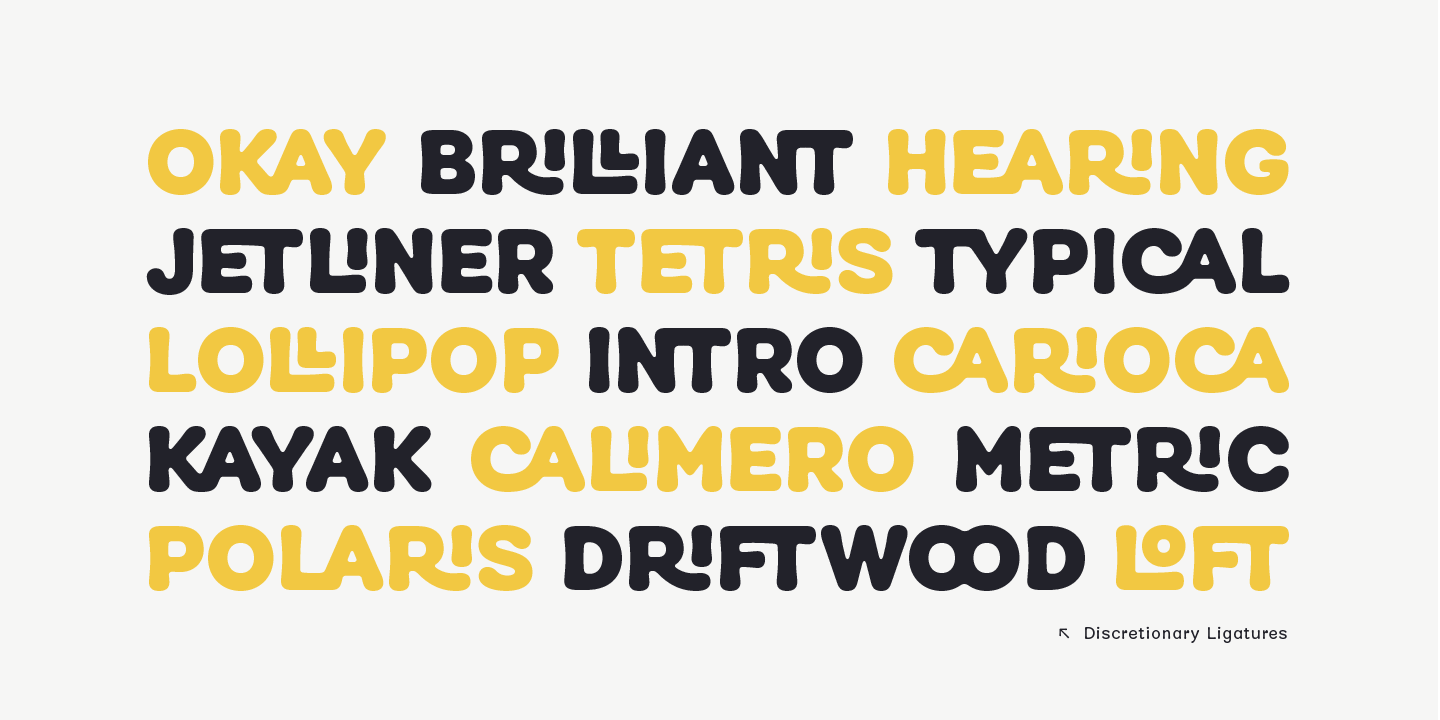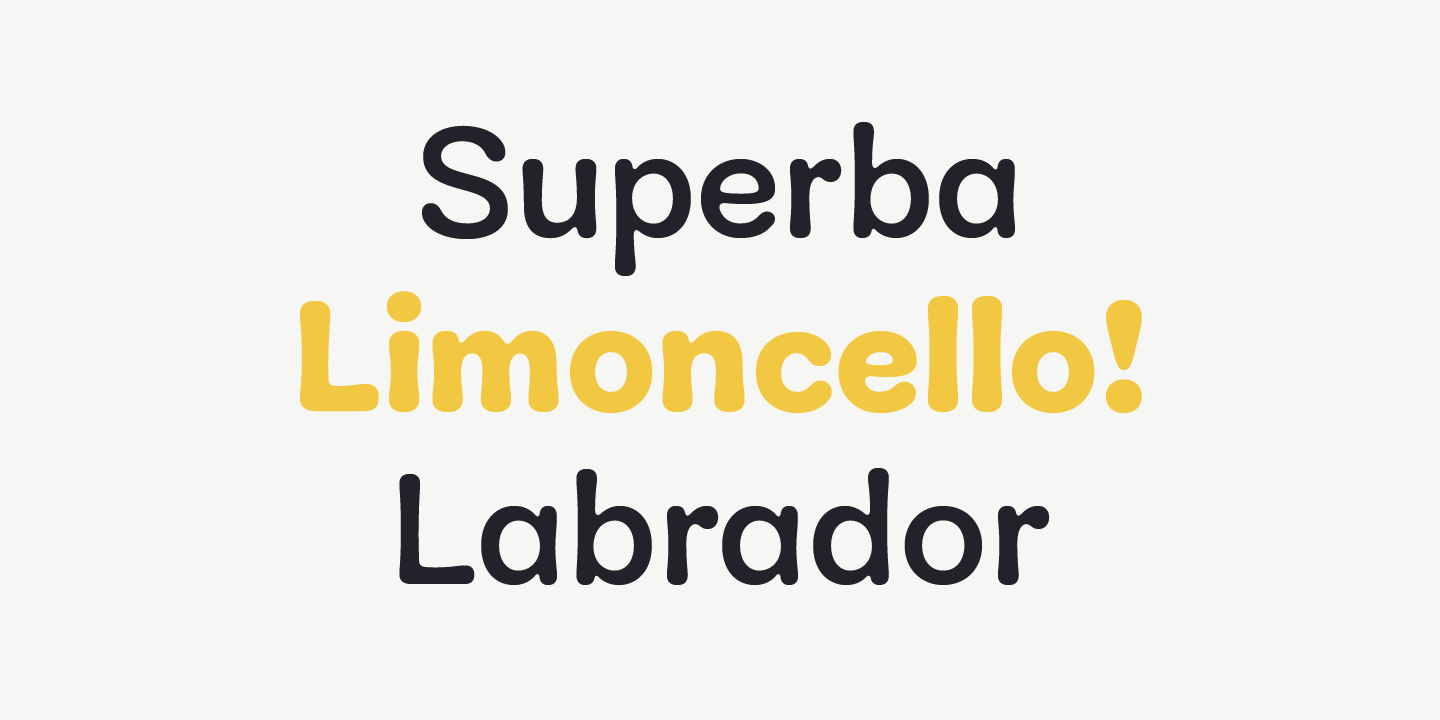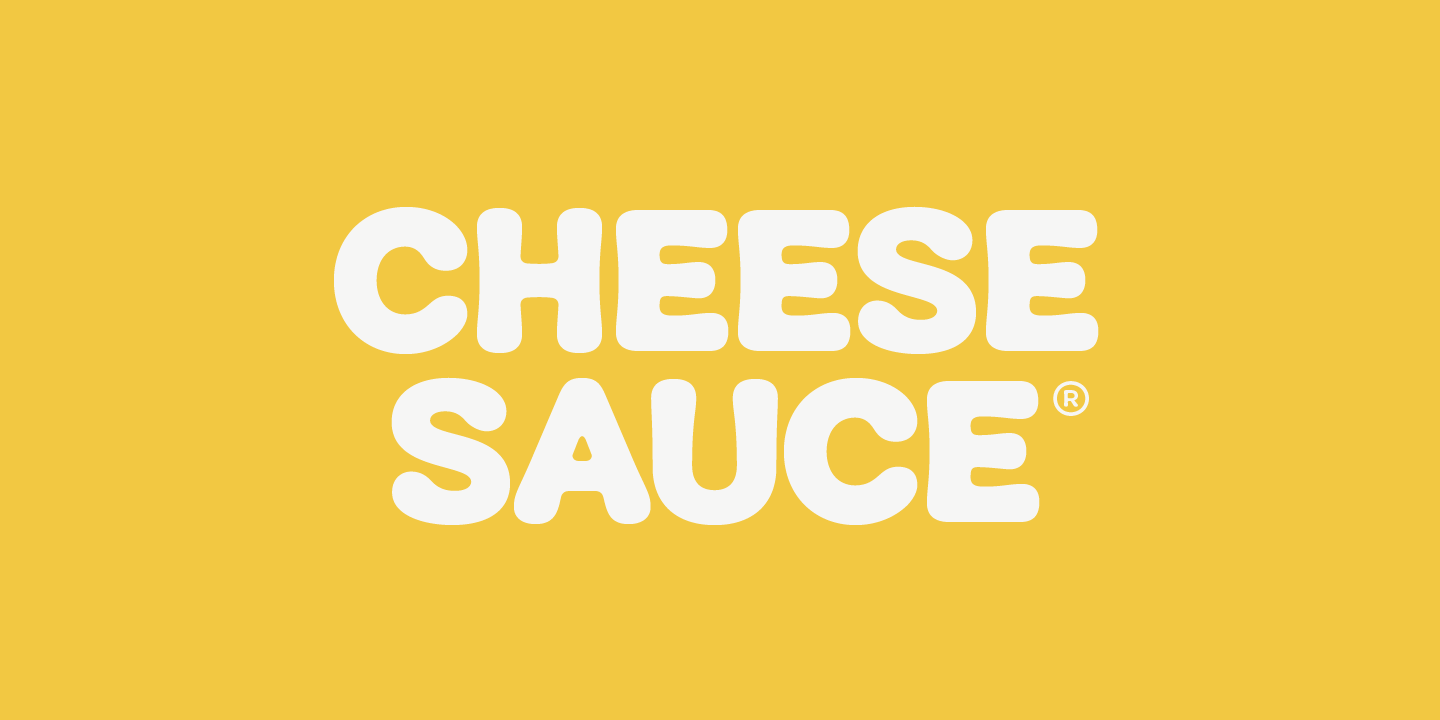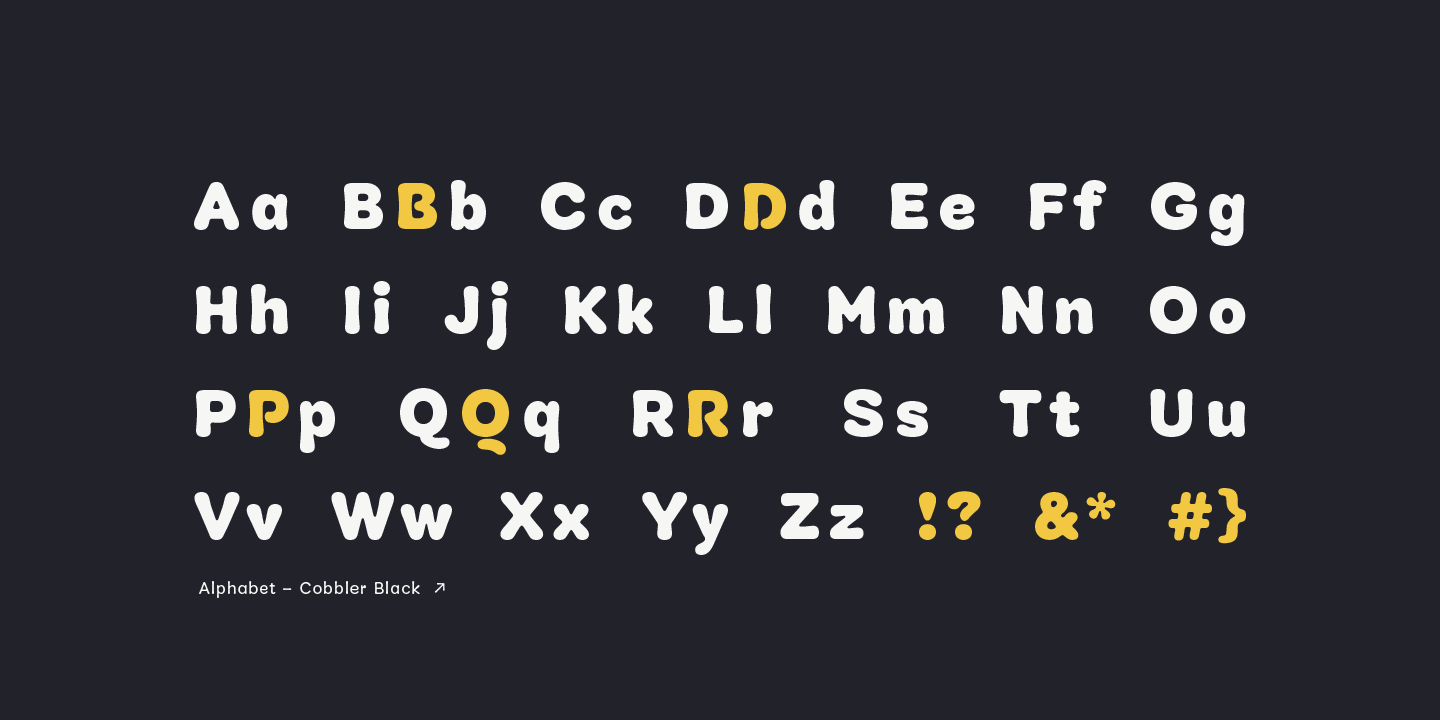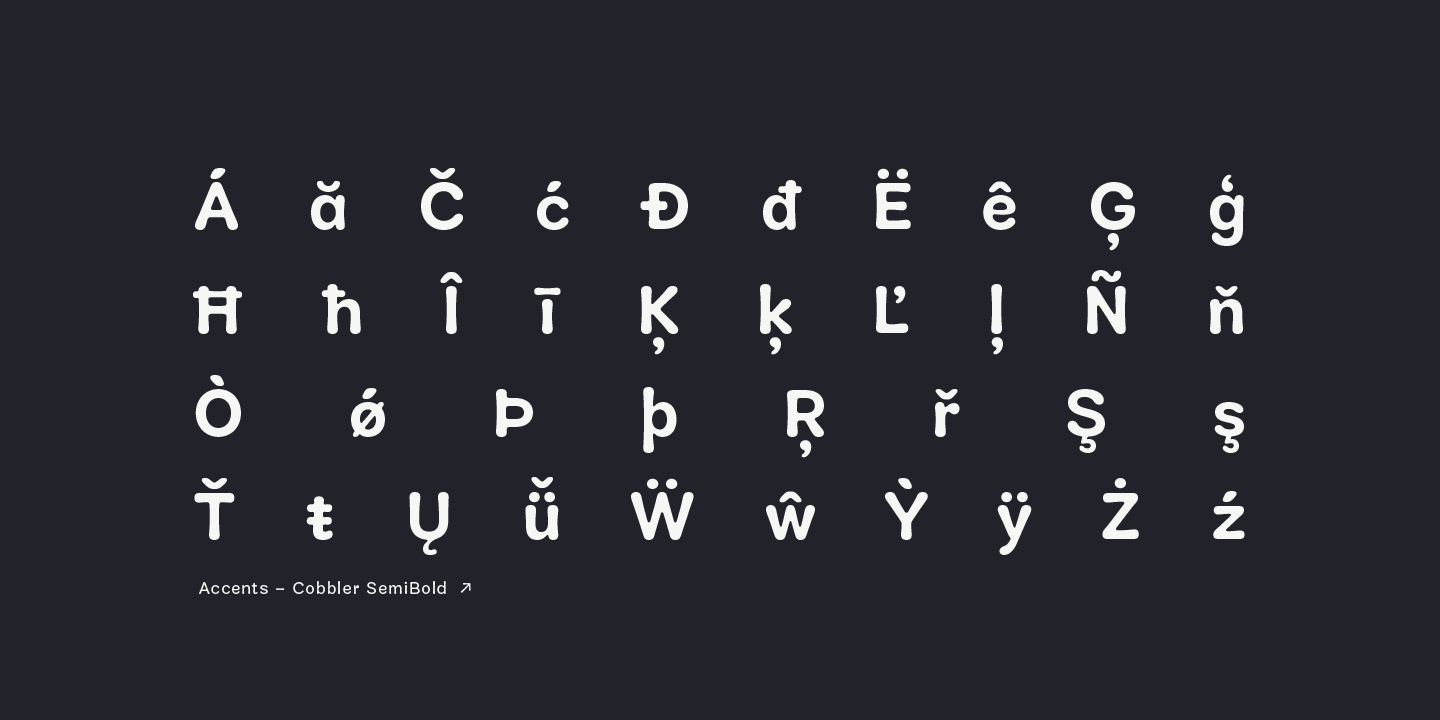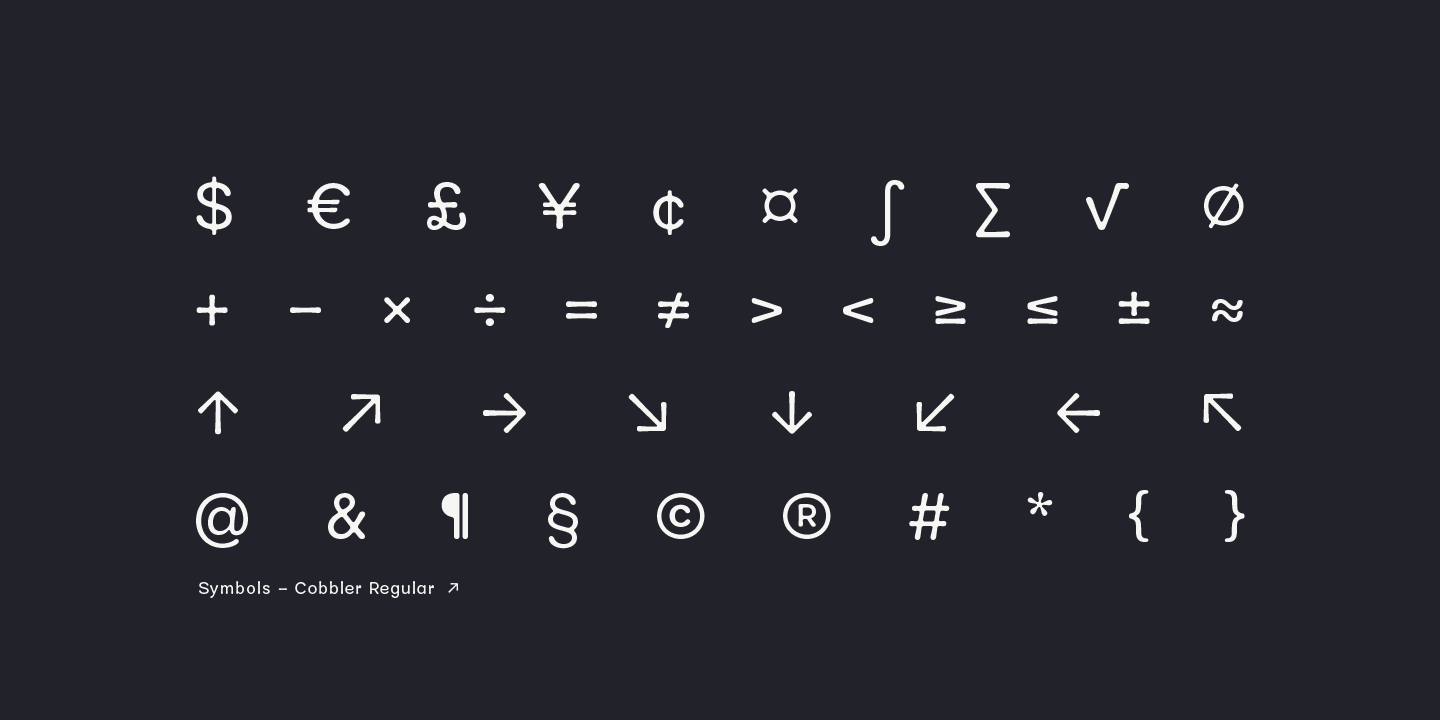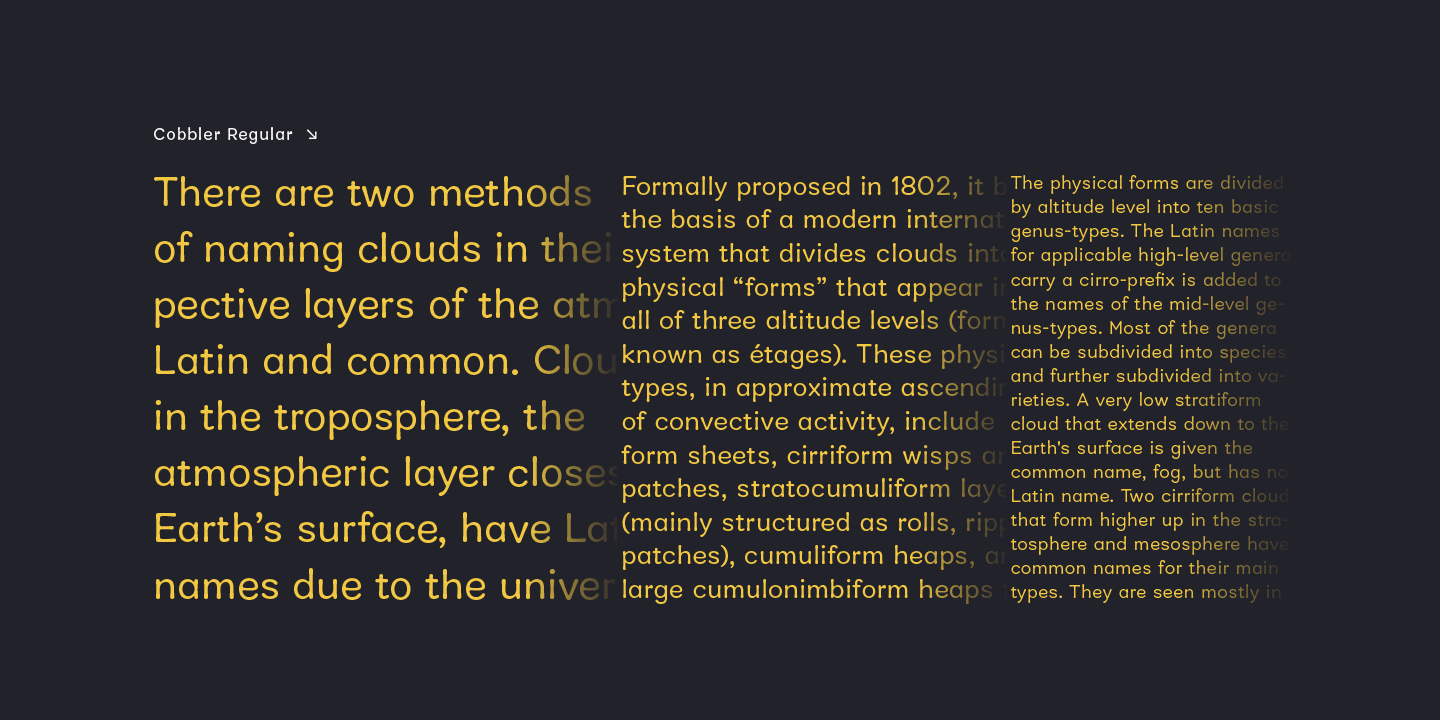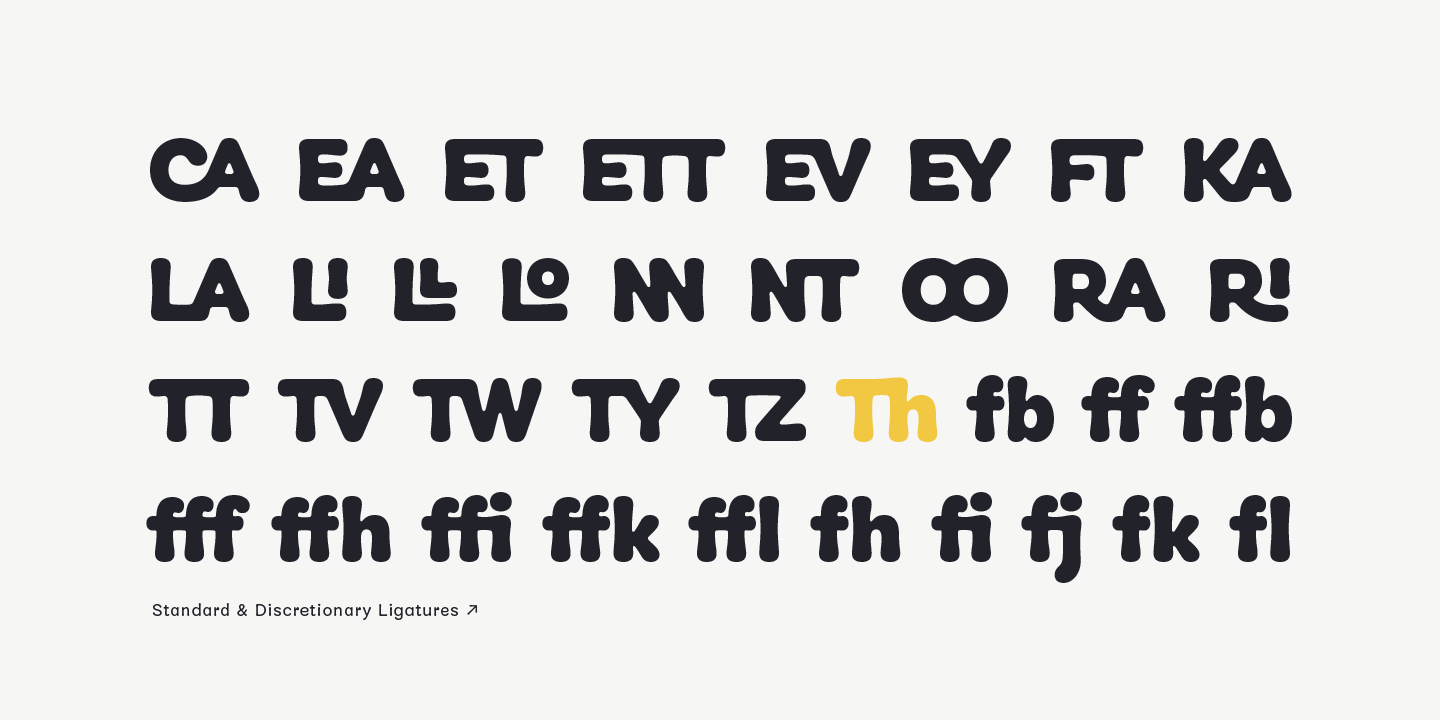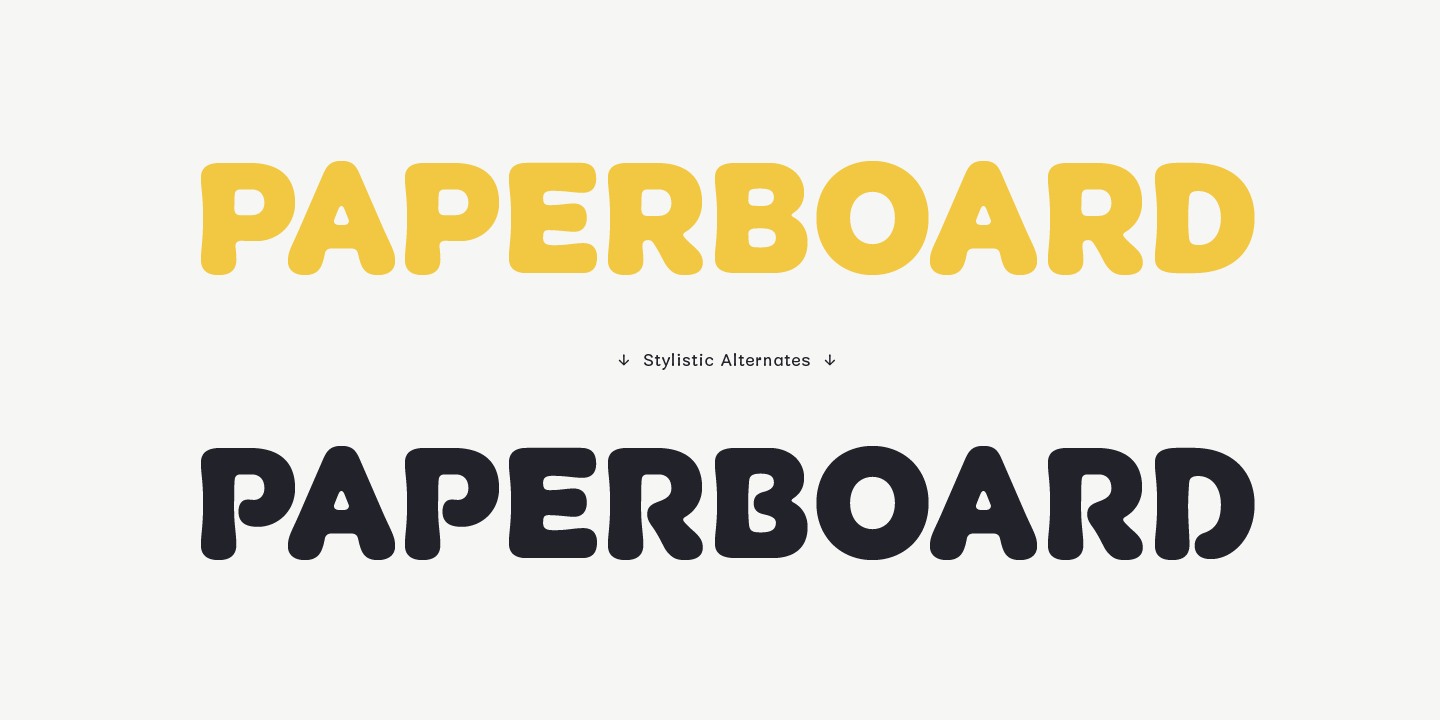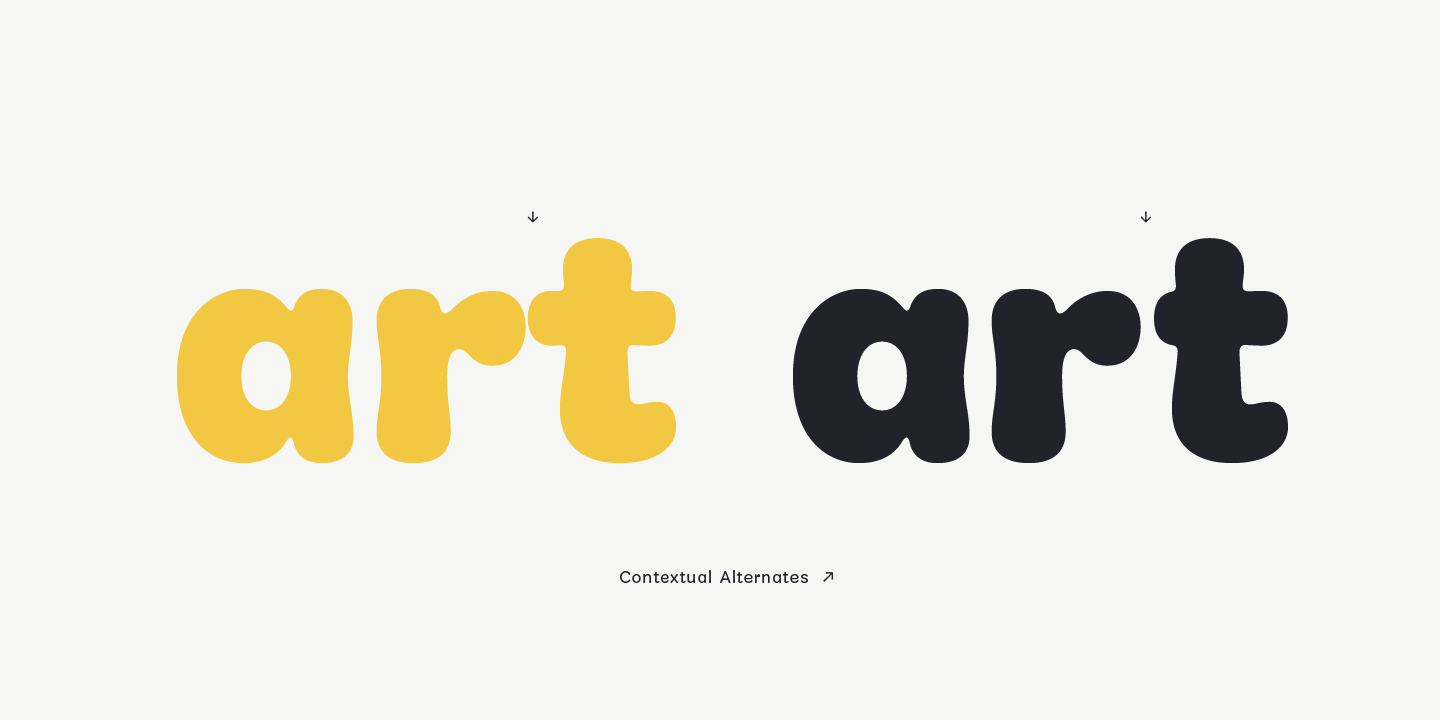
Cobbler is a friendly type family in six weights. With proportions of geometric type, Cobbler is a contemporary sans on the inside and an ultra soft display typeface on the outside. Not a single sharp corner and only a hand full of straights make Cobbler extra warm and huggable. In fact, the few straight horizontal lines give the typeface the stability of a workhorse while keeping the gooey playfulness that characterizes Cobbler so much. And to make all this even more fun, there is a pile OpenType features built in. For example loads of Discretionary Ligatures that make capital letters interlock left and right – just fun! Or automatic fractions, case sensitive punctuation and contextual alternates – for serious typesetting. Cobbler works great for branding, packaging, editorial or any display application – and it comes with an expansive character set that covers Underware’s Latin Plus and with it over 200 languages. Furthermore Cobbler is manually kerned and auto-hinted for crisp display on screen also in small sizes.